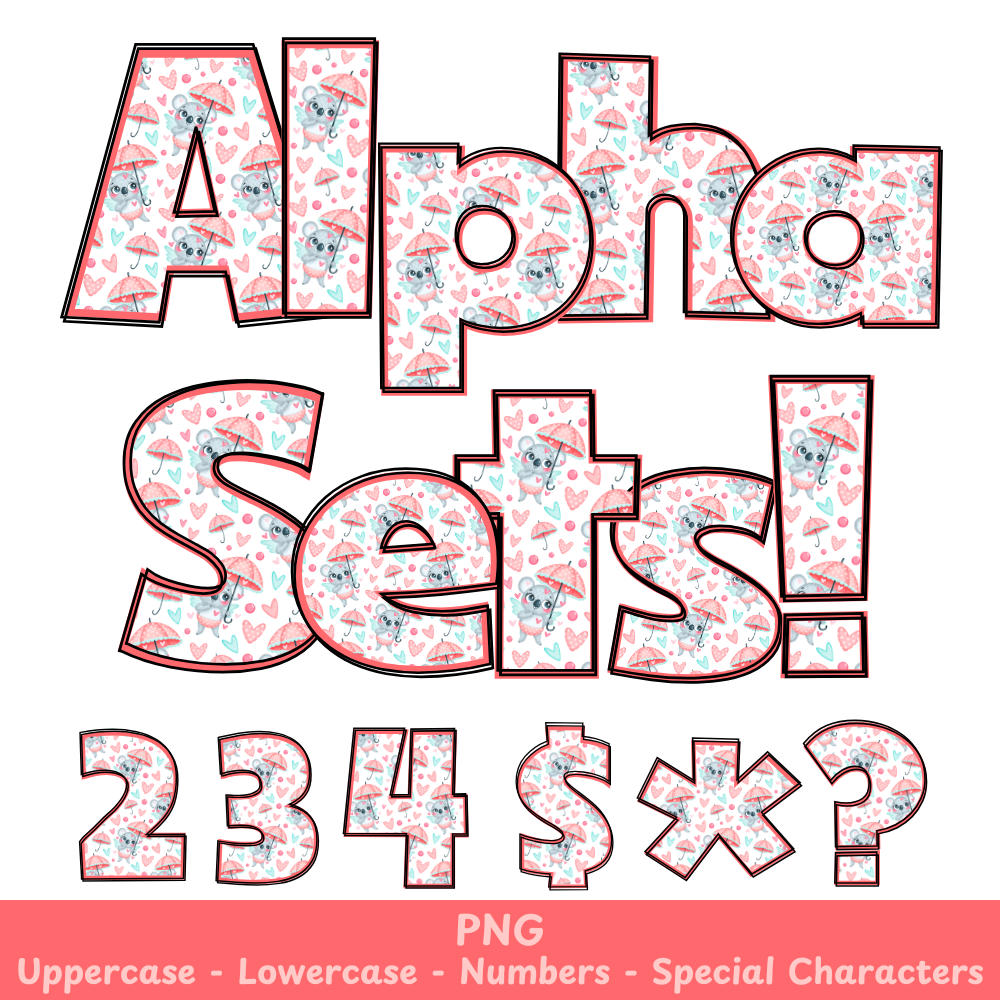
Valentine Koala PNG Font
Valentine Koala Alpha Set PNG Font Pack
Introducing Valentine Koala PNG Font - the perfect addition to your crafting arsenal! With high-quality PNG files, this font can be used in a variety of projects, such as sublimation, card-making, and more. Make your Valentine's Day designs stand out with this adorable and versatile font.